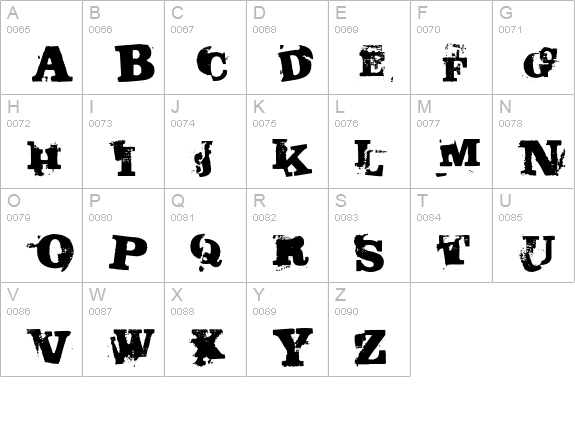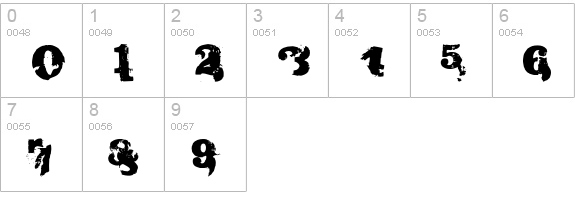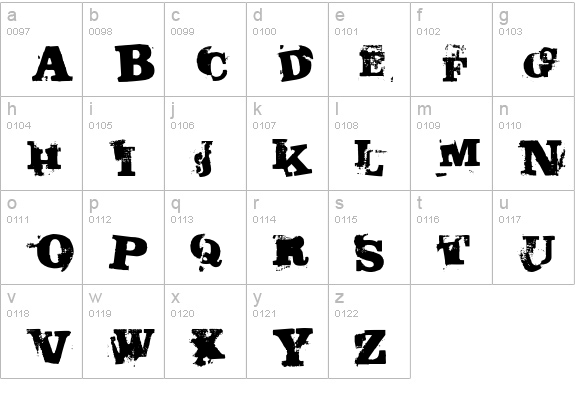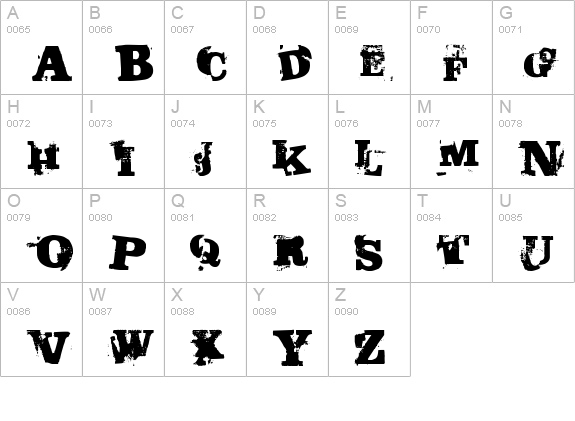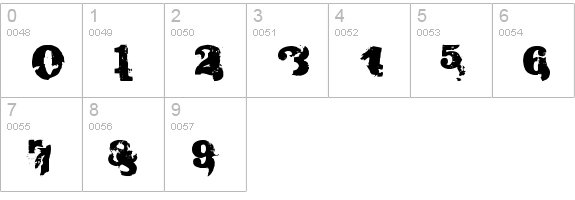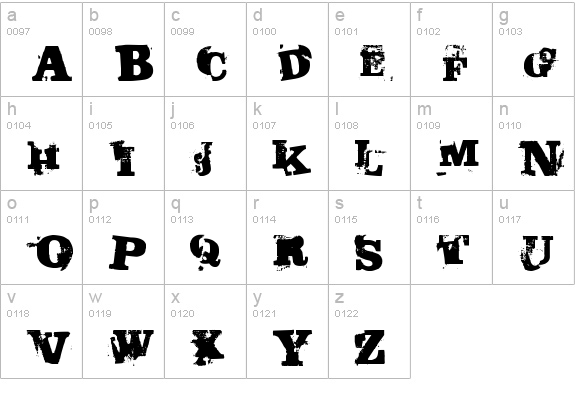
Burlap Font Details
Burlap font exudes a rustic charm with its textured and handcrafted appearance. Its unique design brings a touch of warmth and character to any project, making it perfect for a wide range of creative endeavors. Whether you're working on a vintage-inspired design or adding a touch of earthy elegance to your project, Burlap font is sure to make a statement. Best of all, Burlap font is available for free download at FontsMarket.com. This means you can easily access this versatile font and incorporate it into your projects without any cost. Don't miss out on the opportunity to add the cozy and inviting feel of Burlap font to your designs. Download it today and let your creativity flourish!